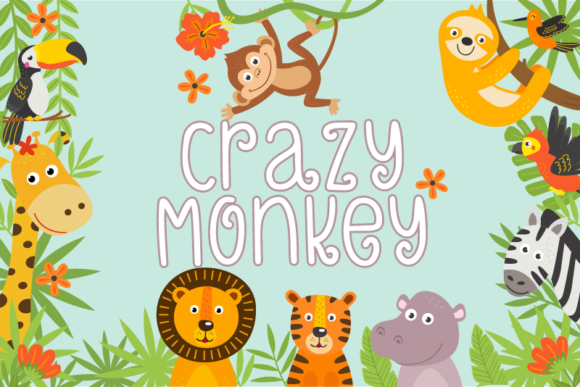
Step into a world of enchanting creativity with Crazy Monkey Font, a script font that dances with joy and imagination. Its playful characters, reminiscent of a child's carefree scribbles, will bring a touch of whimsy and wonder to all your creative projects. Dive into a universe where every word tells a story and every letter exudes personality.
Crafted with love by CraftBundles, Crazy Monkey Font is not just a collection of letters and symbols; it's an artistic journey that captures the essence of childhood dreams and boundless imagination. Its flowing lines and charming imperfections add a unique touch to wedding invitations, thank you cards, quotes, greeting cards, logos, business cards, and any design yearning for a customized flair.
Imagine the delight of a child receiving a birthday card adorned with Crazy Monkey's playful letters, each character a delightful surprise. The font's enchanting curves and loops create a sense of playfulness that's impossible to resist. Let Crazy Monkey dance across your designs and ignite the magic of imagination in the hearts of your readers.
With Crazy Monkey Font, you're not just downloading a font; you're inviting a whimsical companion into your creative world. This font will transform your designs into enchanting tales, capturing the essence of wonder and innocence. Let your creativity soar and embark on a journey filled with joy and inspiration.